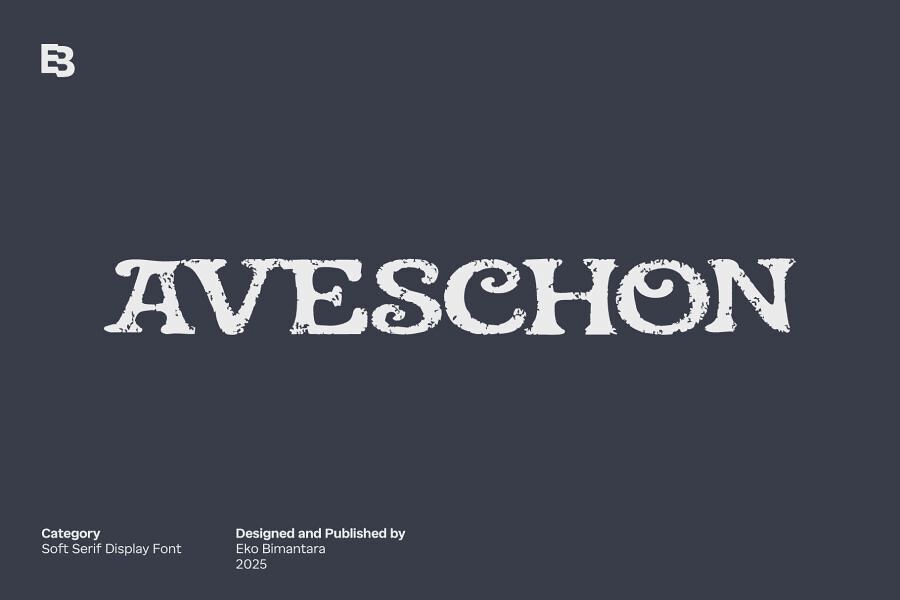
Aveschon is a soft serif display font that combines vintage charm with theatrical flair. Its bold, weathered letterforms feature uneven contours and distressed textures, evoking old signage and classical playbills.
Subtle swashes and high-contrast strokes add whimsy and drama. Perfect for headlines, branding, packaging, or editorial layouts, Aveschon brings a nostalgic yet bold typographic voice. Ideal for fantasy covers, artisan labels, or retro posters, it adds warmth, character, and storytelling to any display design.